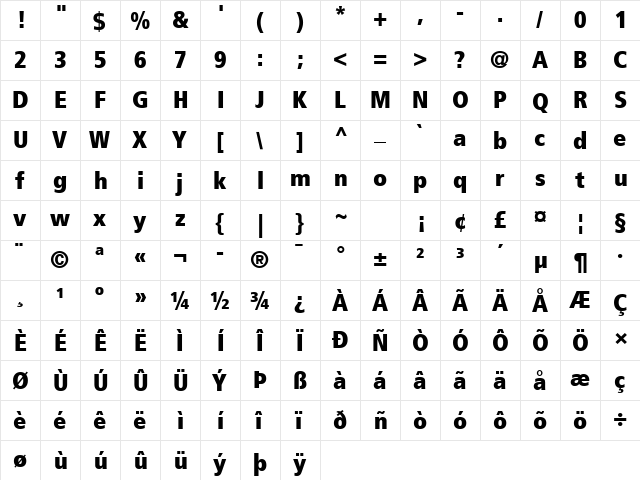
Frutiger LT Com 87 Extra Black Condensed Font Preview
| Foundry | Linotype GmbH |
| Designer | Adrian Frutiger |
Design Context for Frutiger LT Com Typeface
Frutiger LT Com offers clean, dependable letterforms without strong stylistic allegiance, making it a practical choice for designers who need flexibility. Its slender proportions lend an understated elegance to any composition. The condensed width makes it efficient for tight spaces without sacrificing legibility.